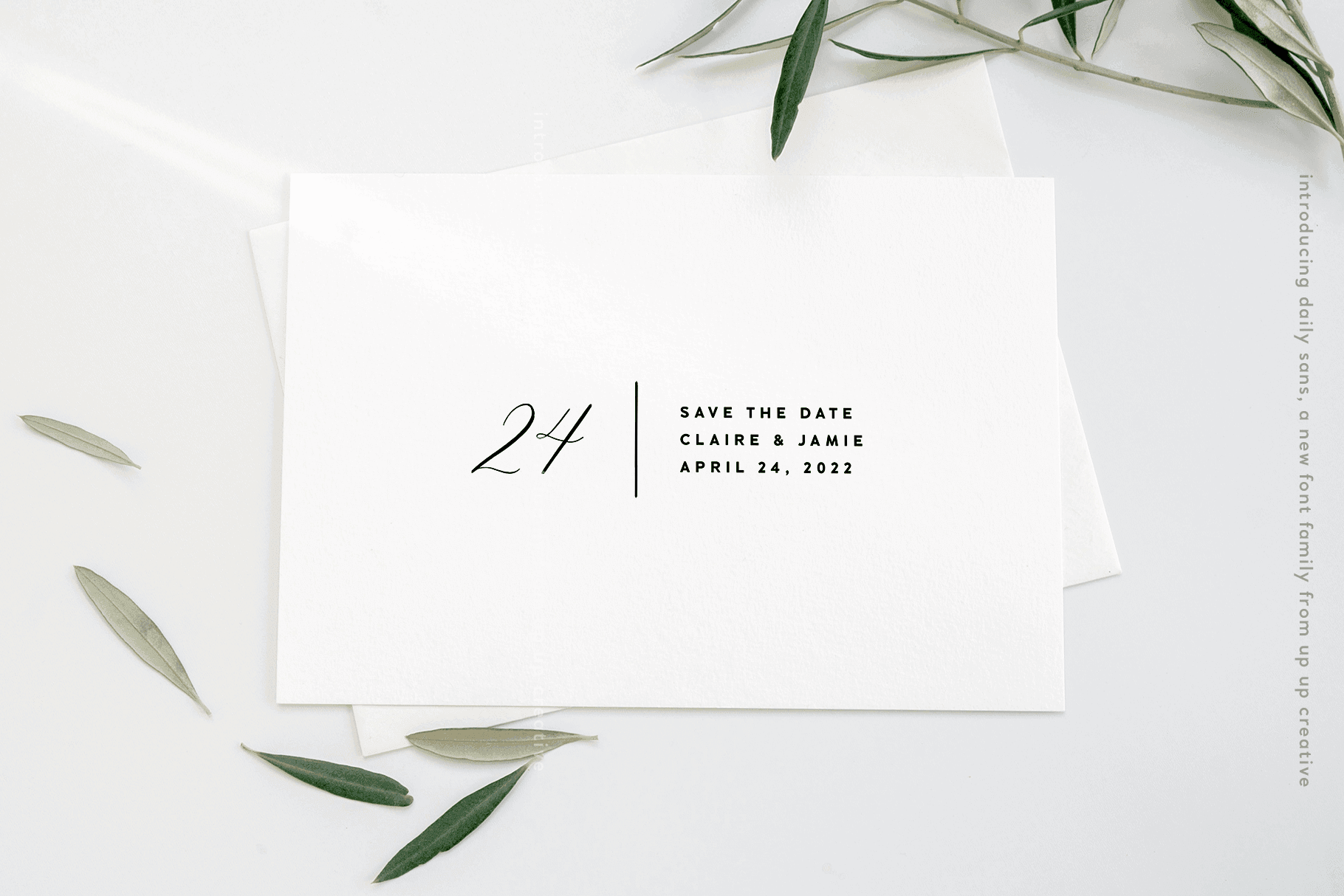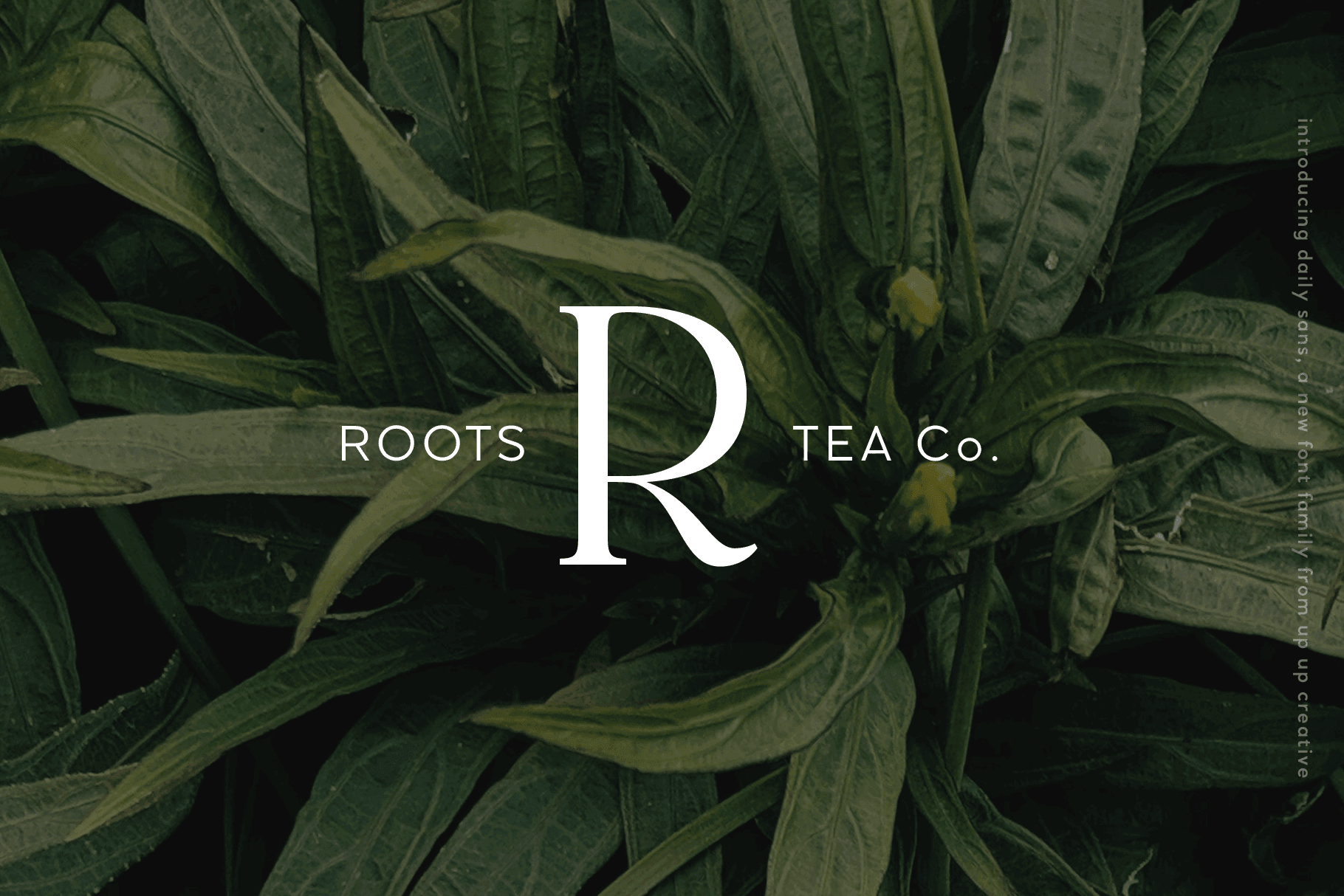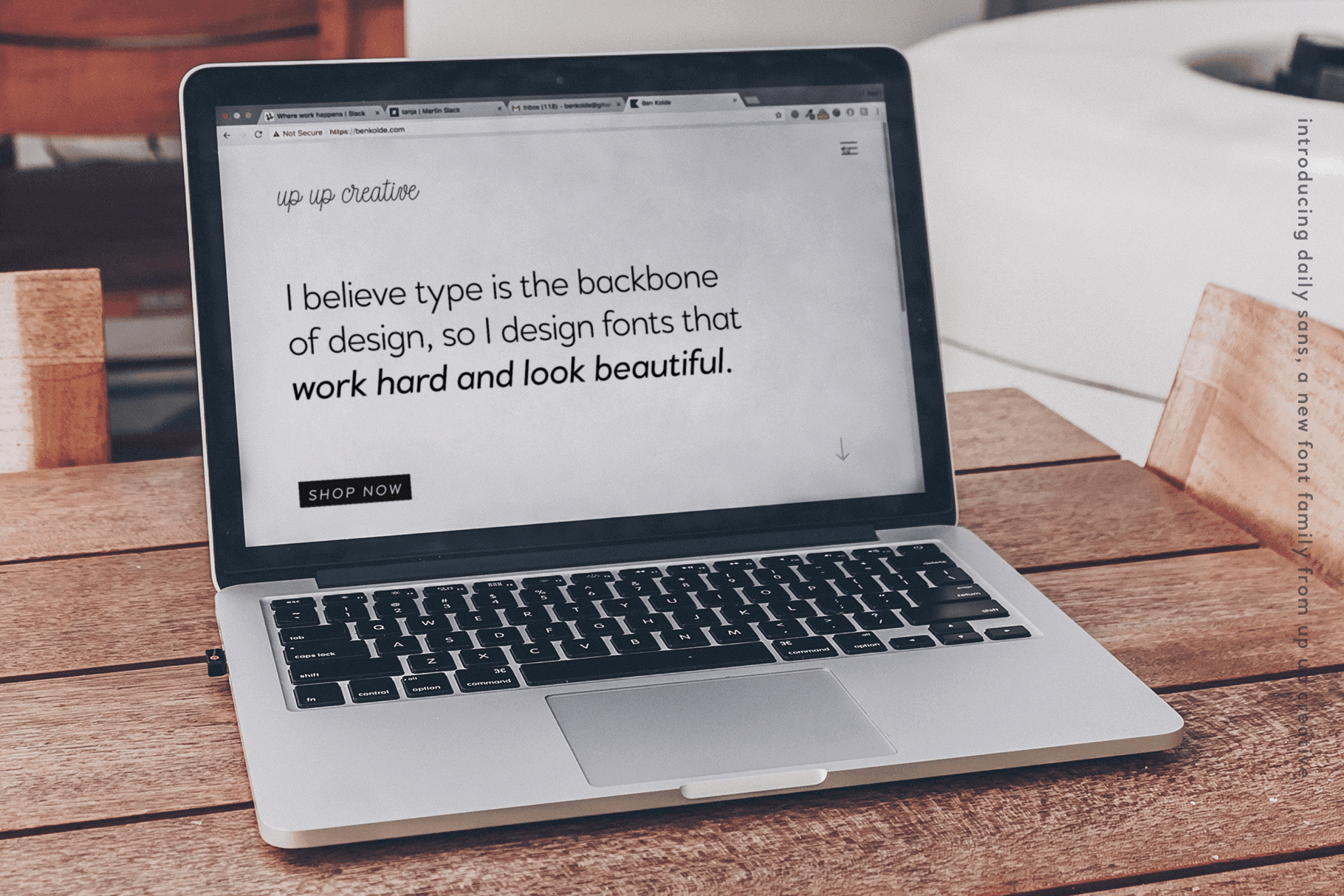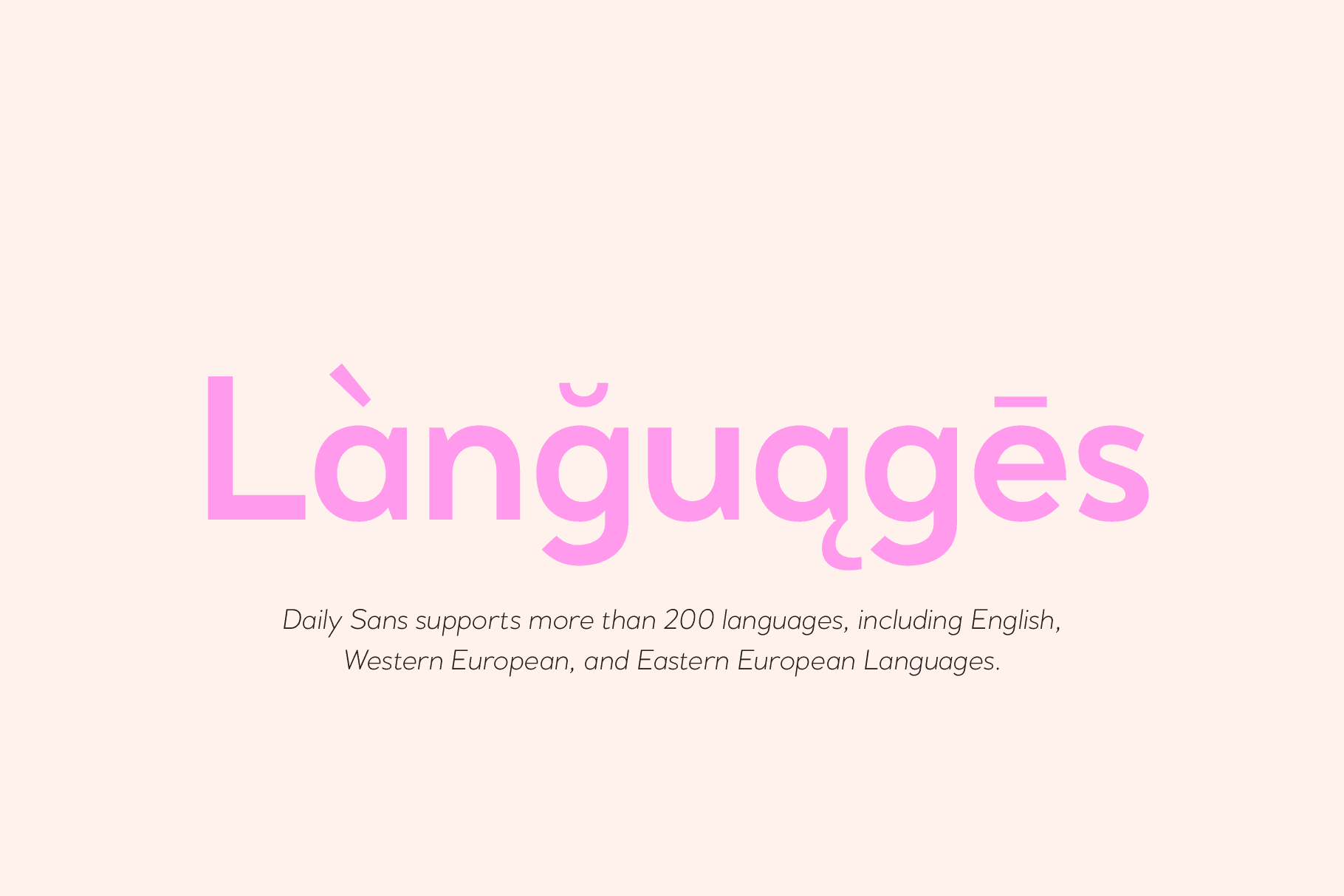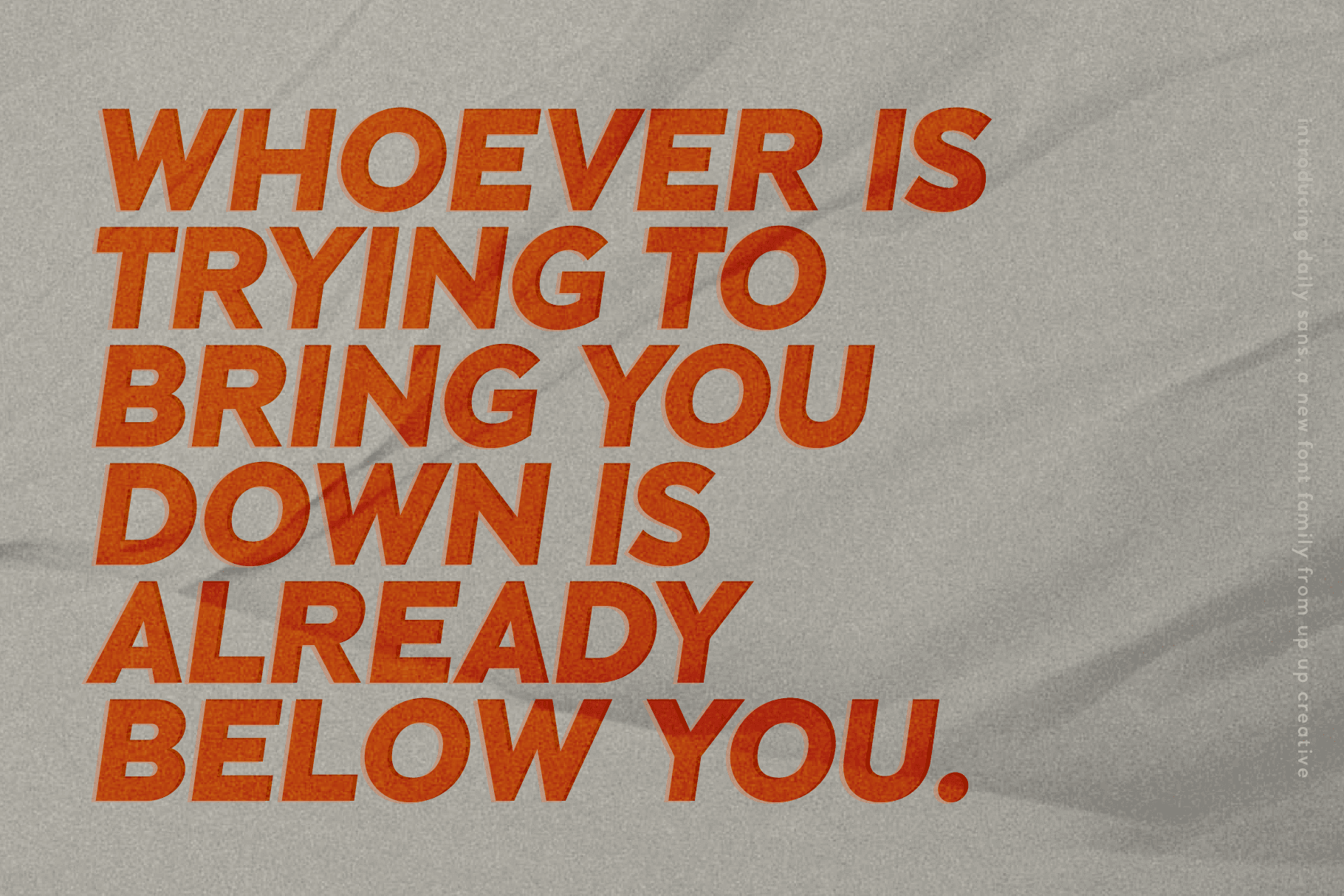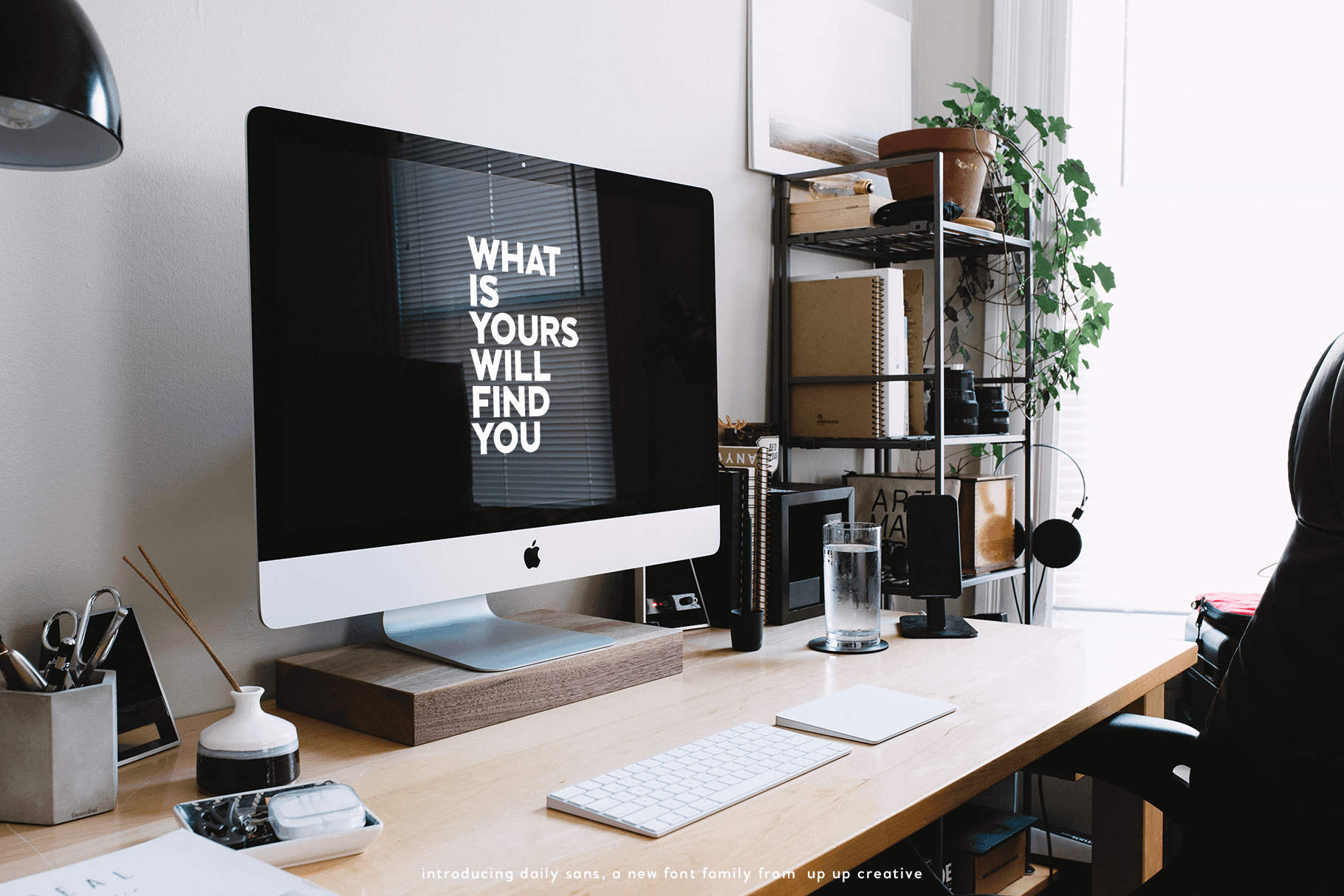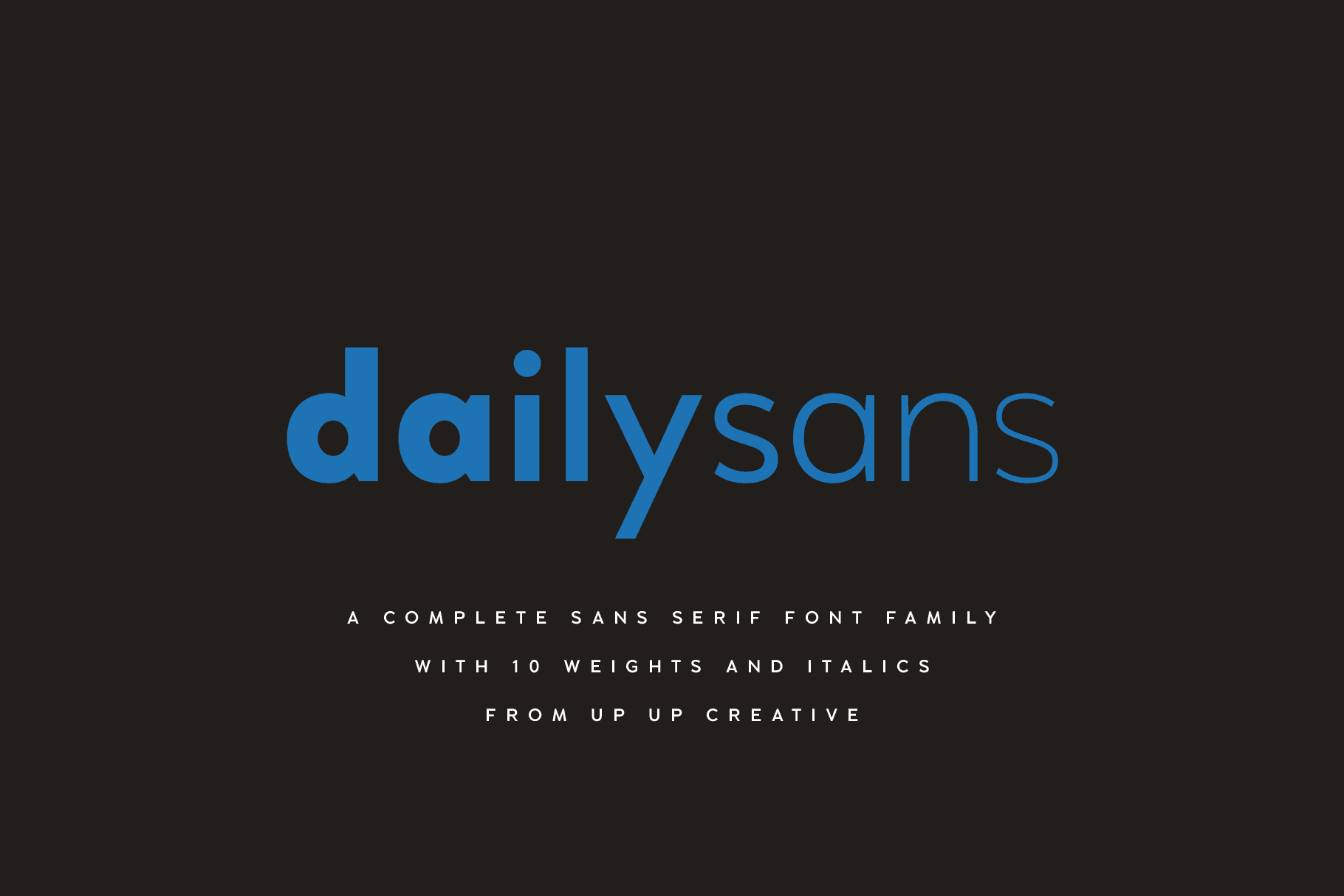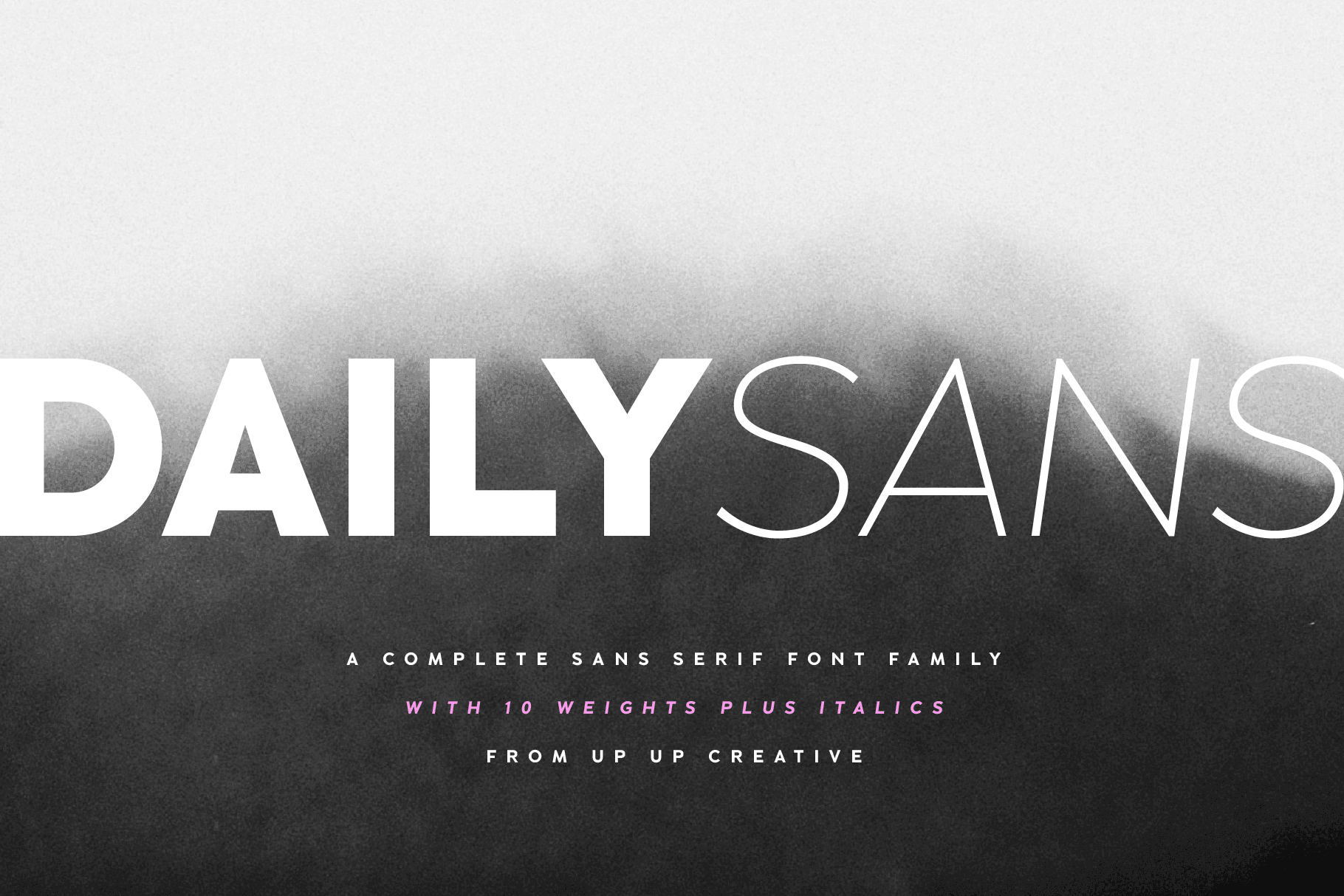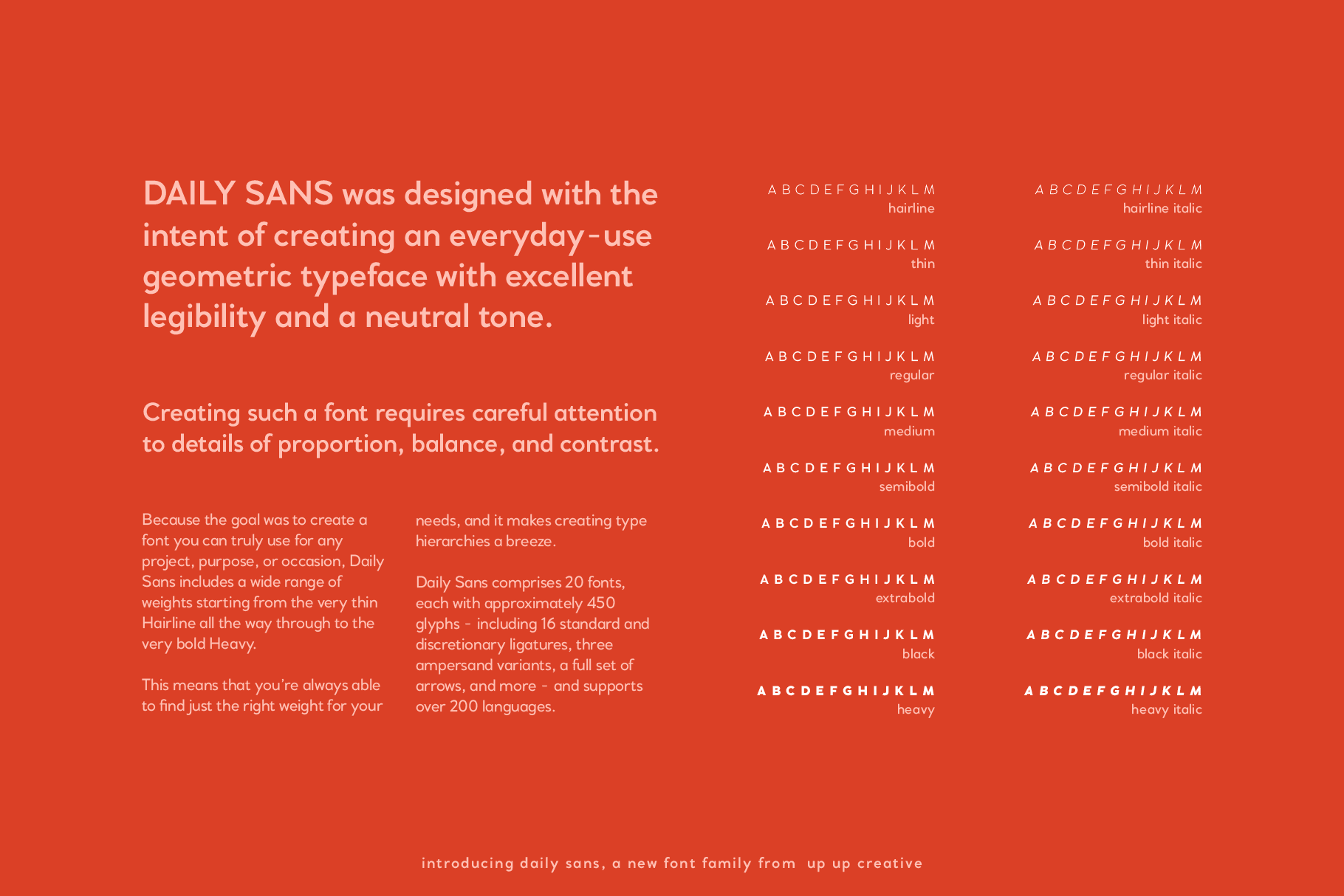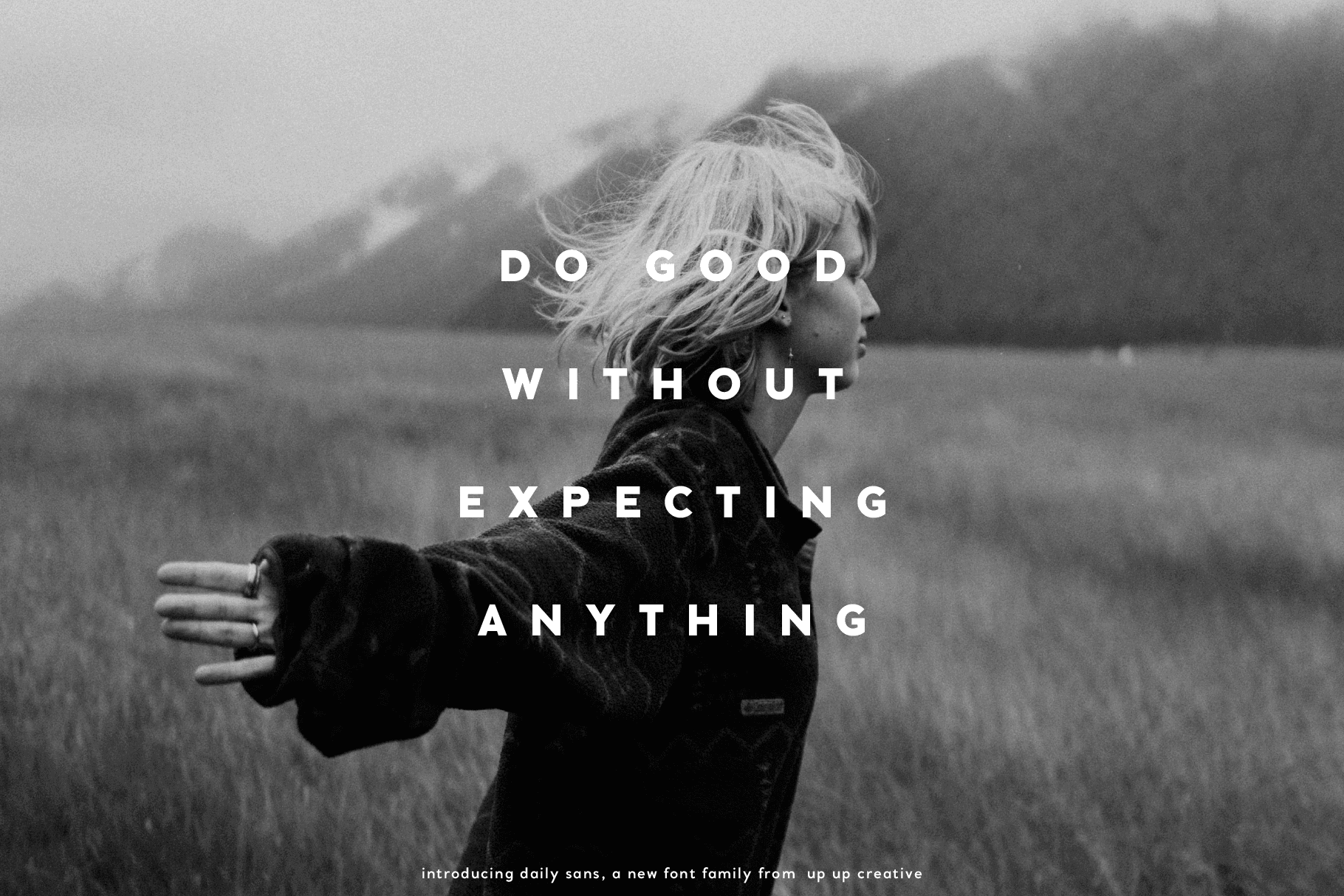
Daily Sans Complete Sans Serif Font Family
Introducing Daily Sans, a complete sans serif font family with 10-weights, plus italics (20-fonts total). Daily Sans was designed to be an everyday-use geometric typeface with excellent legibility and a neutral tone, a perfect go-to for branding, web, and print design projects. It can stand out on its own or play a supporting role in font pairings. It’s great for body/paragraph type as well as for larger display type.
Because the goal was to create a font you can truly use for any project, purpose, or occasion, Daily Sans includes a wide range of weights starting from the very thin Hairline all the way through to the very bold Heavy. This means that you’re always able to find just the right weight for your needs, and it makes creating type hierarchies a breeze.
Daily Sans includes the following OpenType features:
- character variants
- fractions
- localized forms (multi-language and multi-currency support)
- ordinals and superscripts
- standard and discretionary ligatures
- stylistic sets
Includes 15 ligatures
- Released in 2022
- Includes 446 glyphs
- 10 Weights, each in Italic and Regular